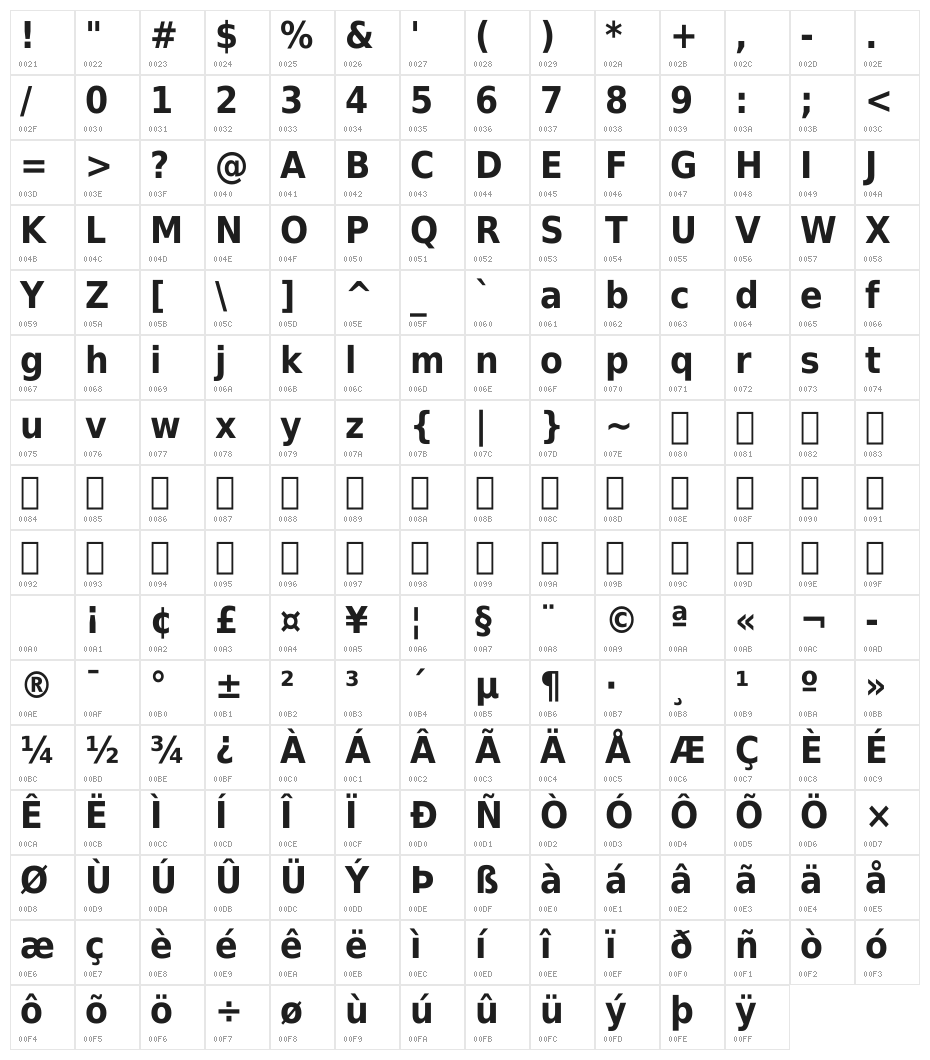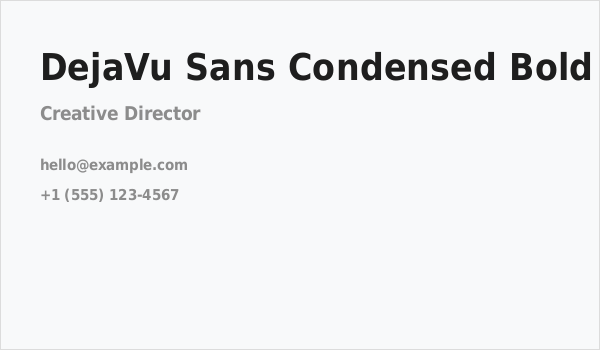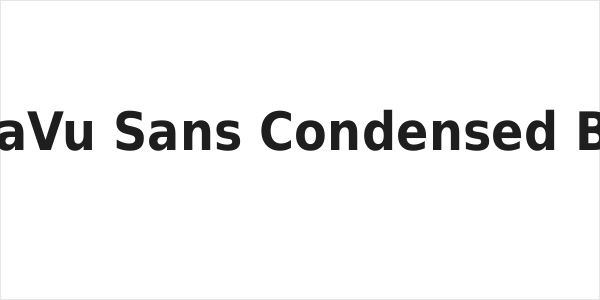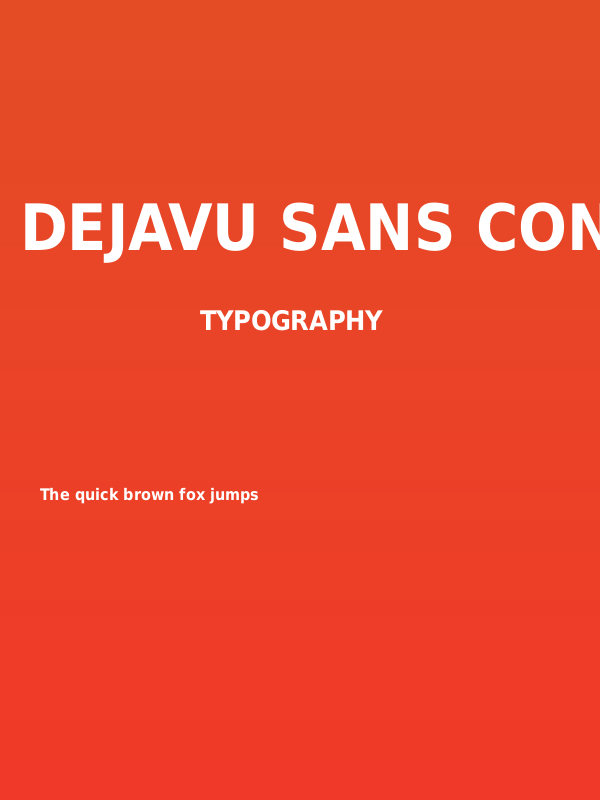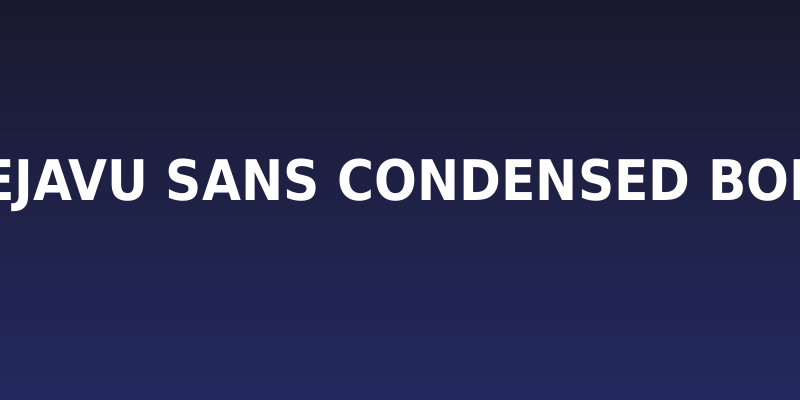
DejaVu Sans Condensed Bold Font
DejaVu Sans Condensed Bold Description
This font features a clean and modern sans-serif style with bold weight, offering excellent readability and a strong presence. The condensed width allows for efficient use of space, making it suitable for various design applications. The characters are well-defined with consistent stroke thickness, providing a uniform appearance across all letters and numbers. The overall design is straightforward and functional, ideal for conveying information clearly and effectively. The font includes a full set of uppercase and lowercase letters, numerals, and a variety of special characters, ensuring versatility in use.
| Proposed Projects | Ideal for headlines, posters, signage, and branding materials where space is limited but impact is needed. |